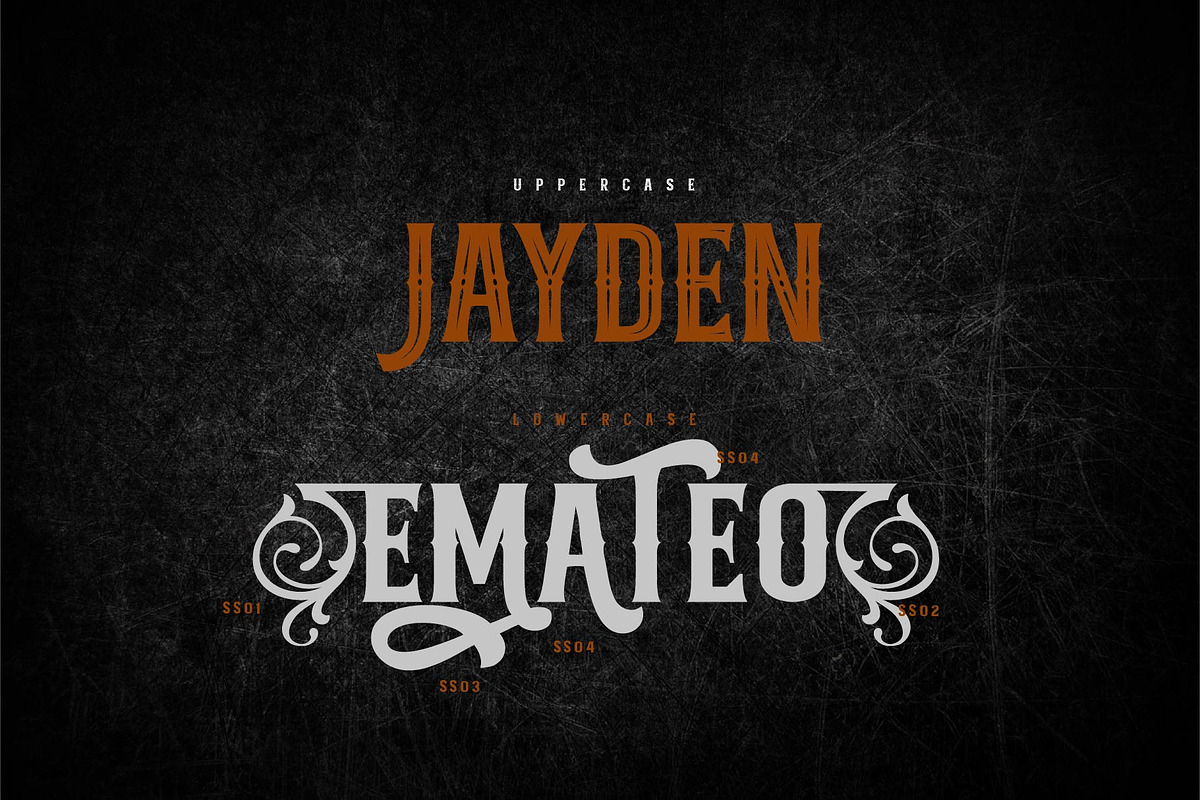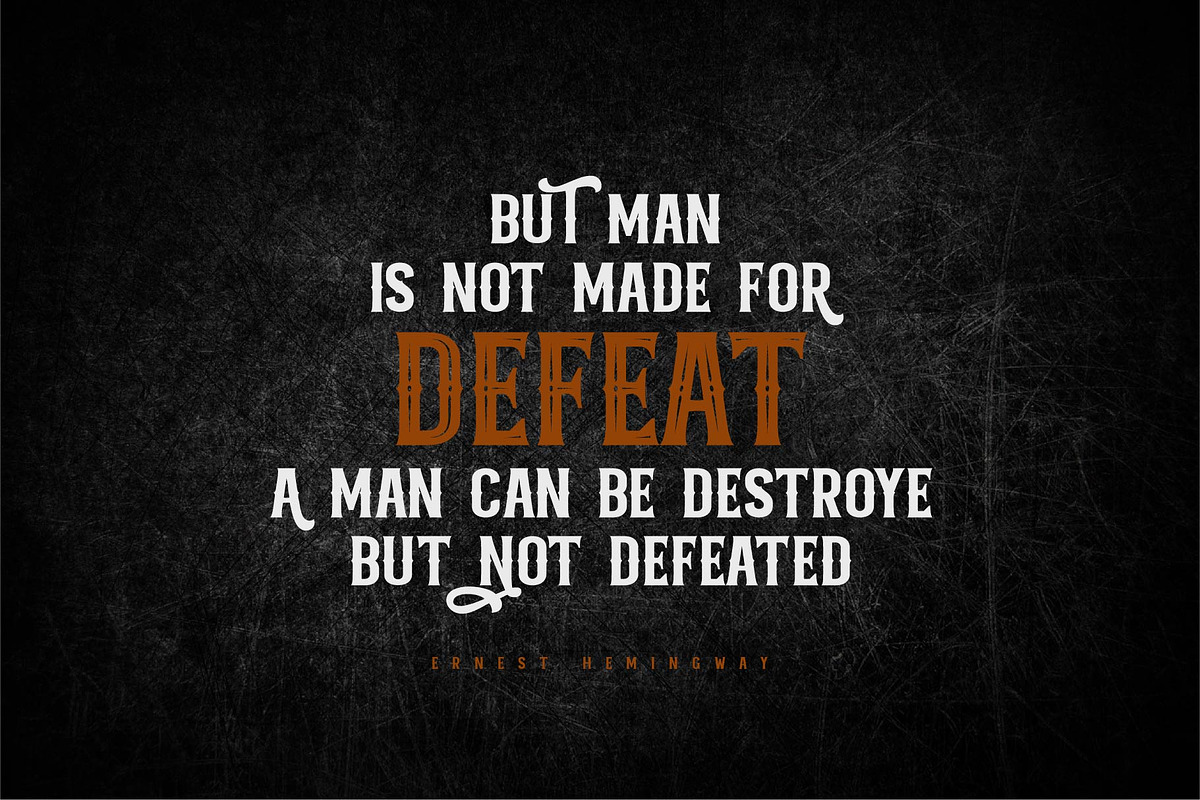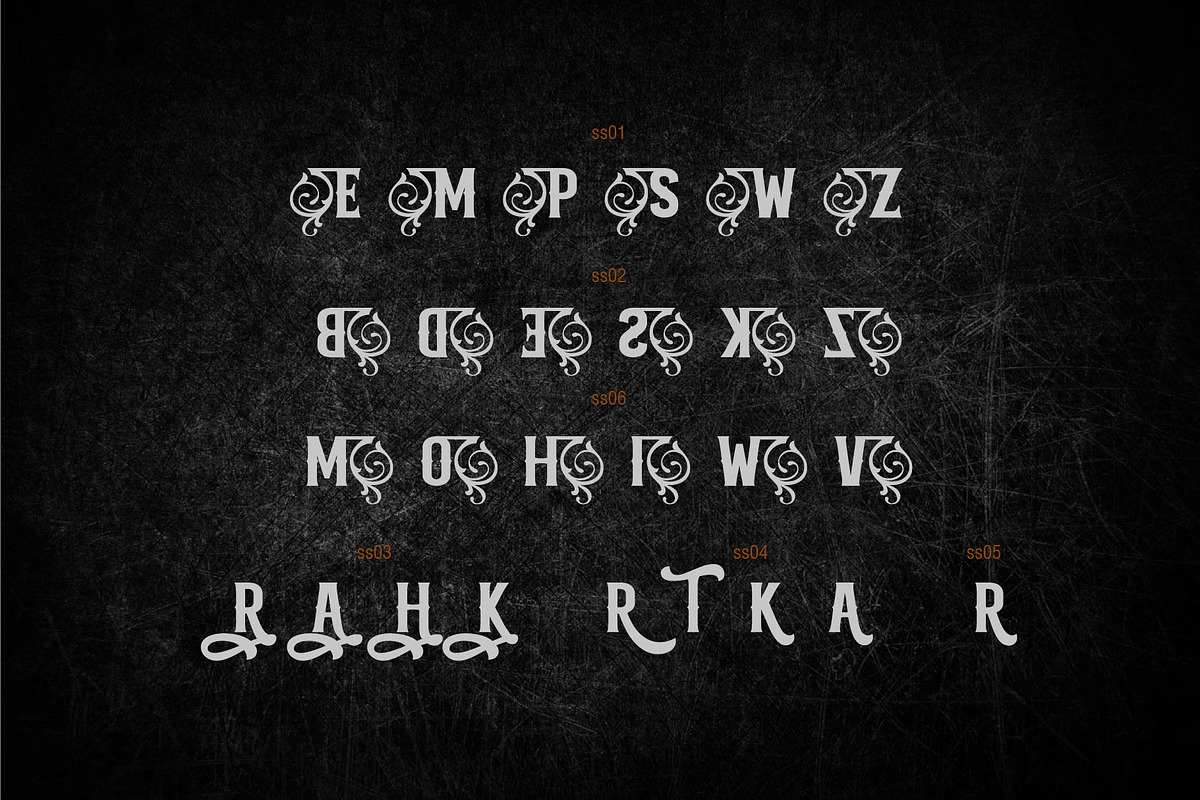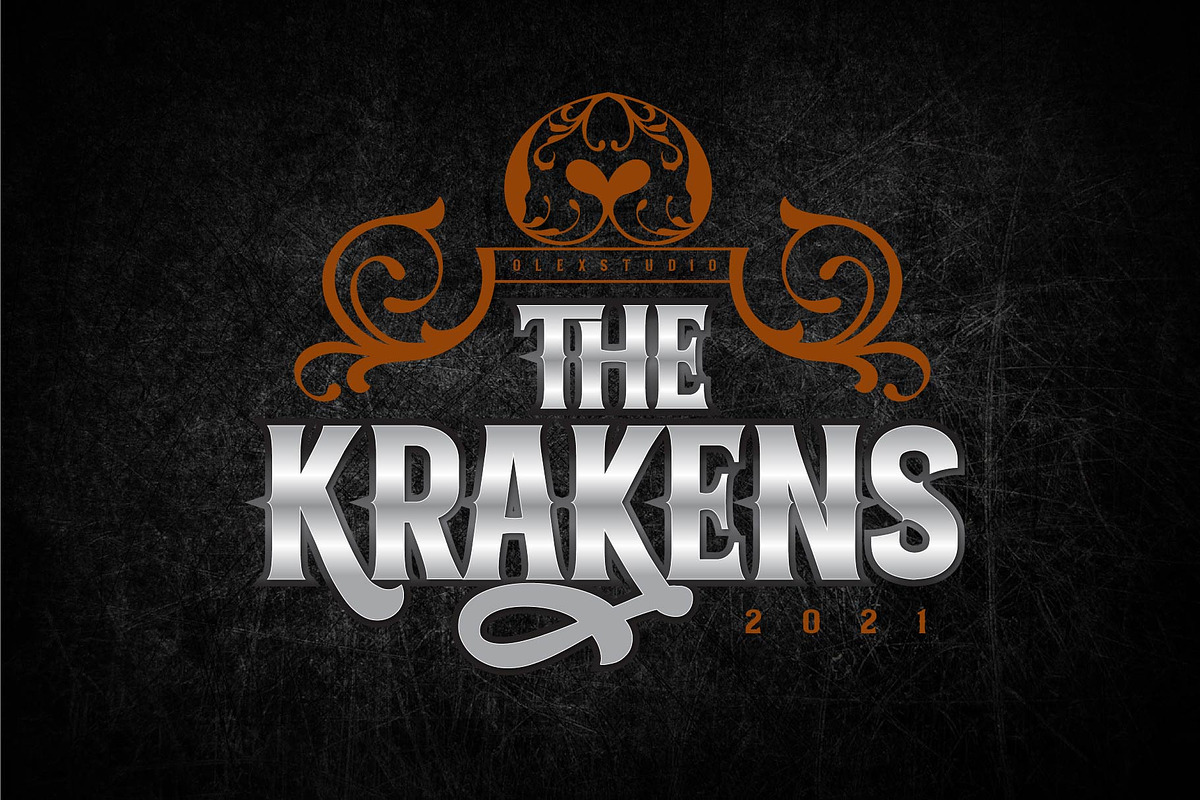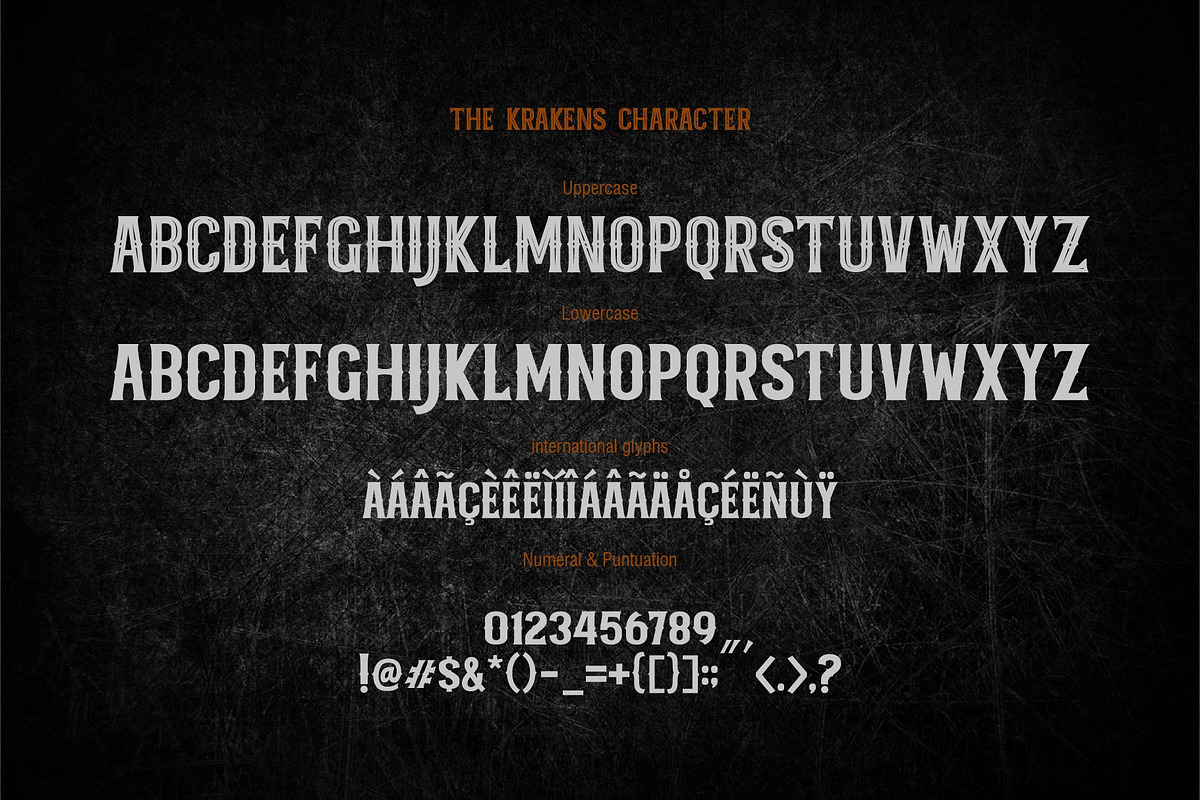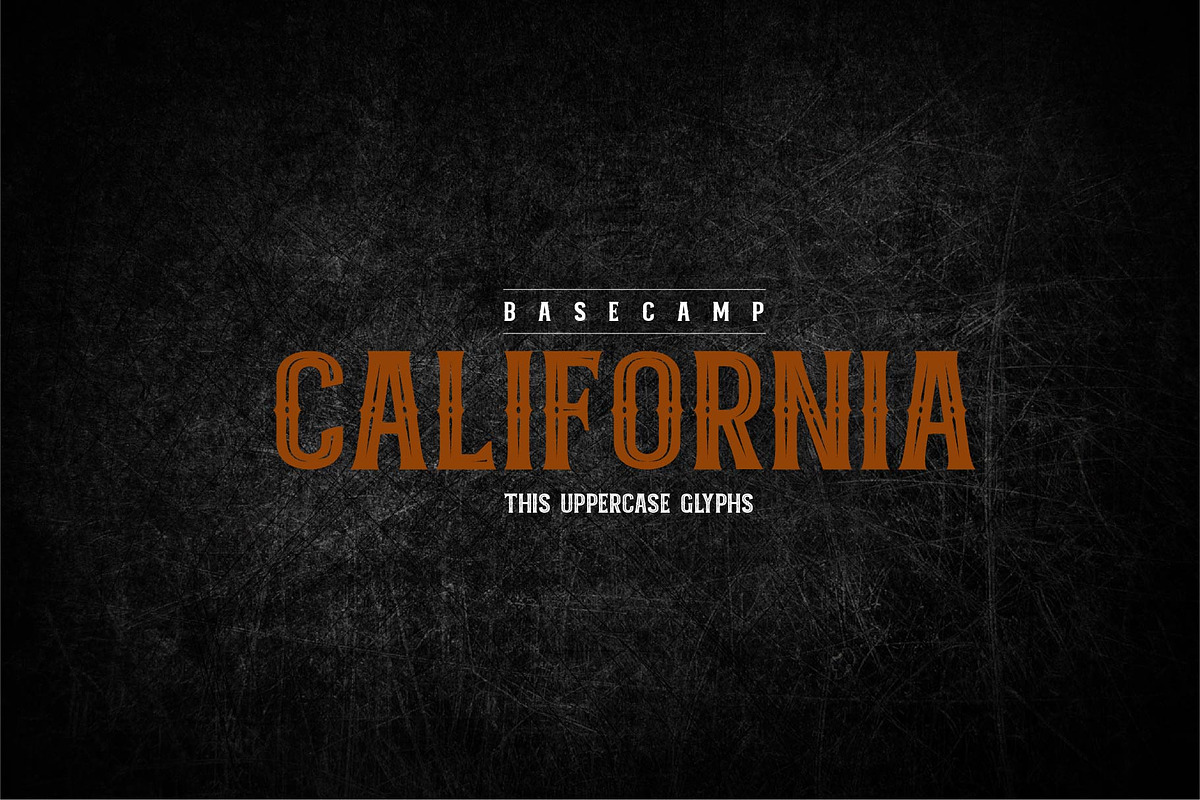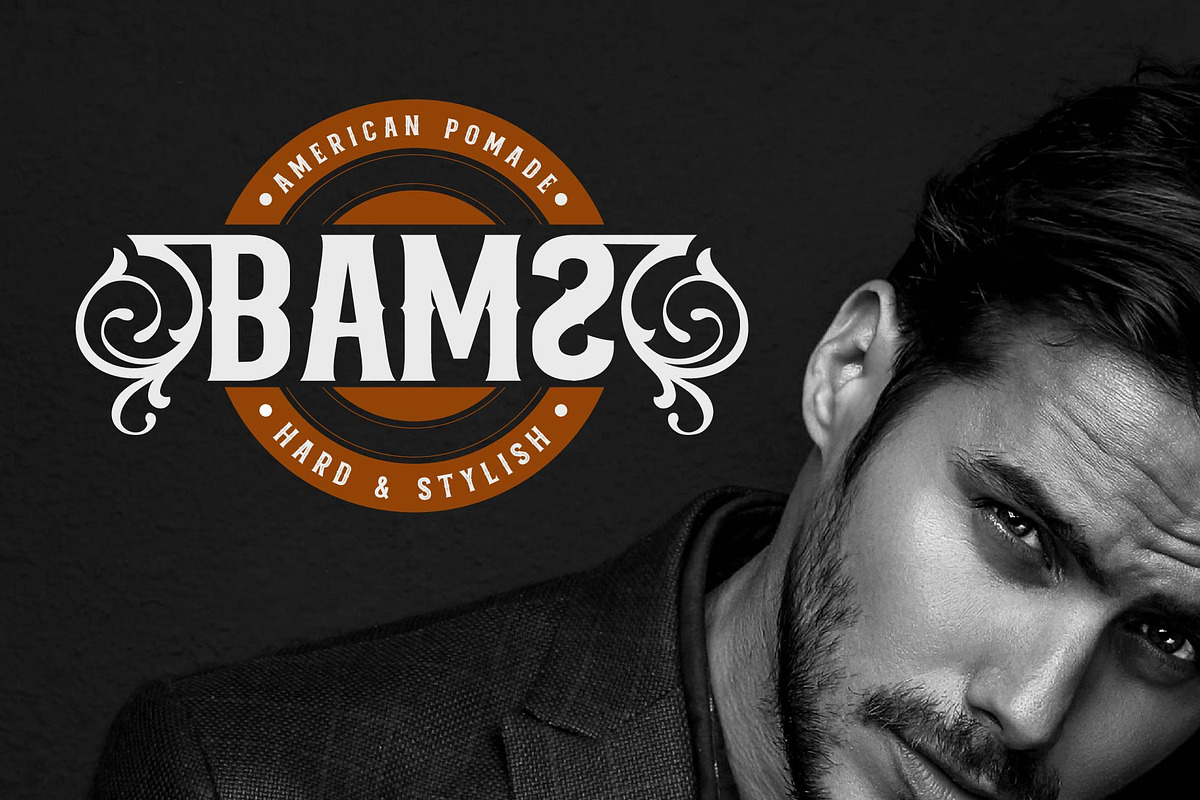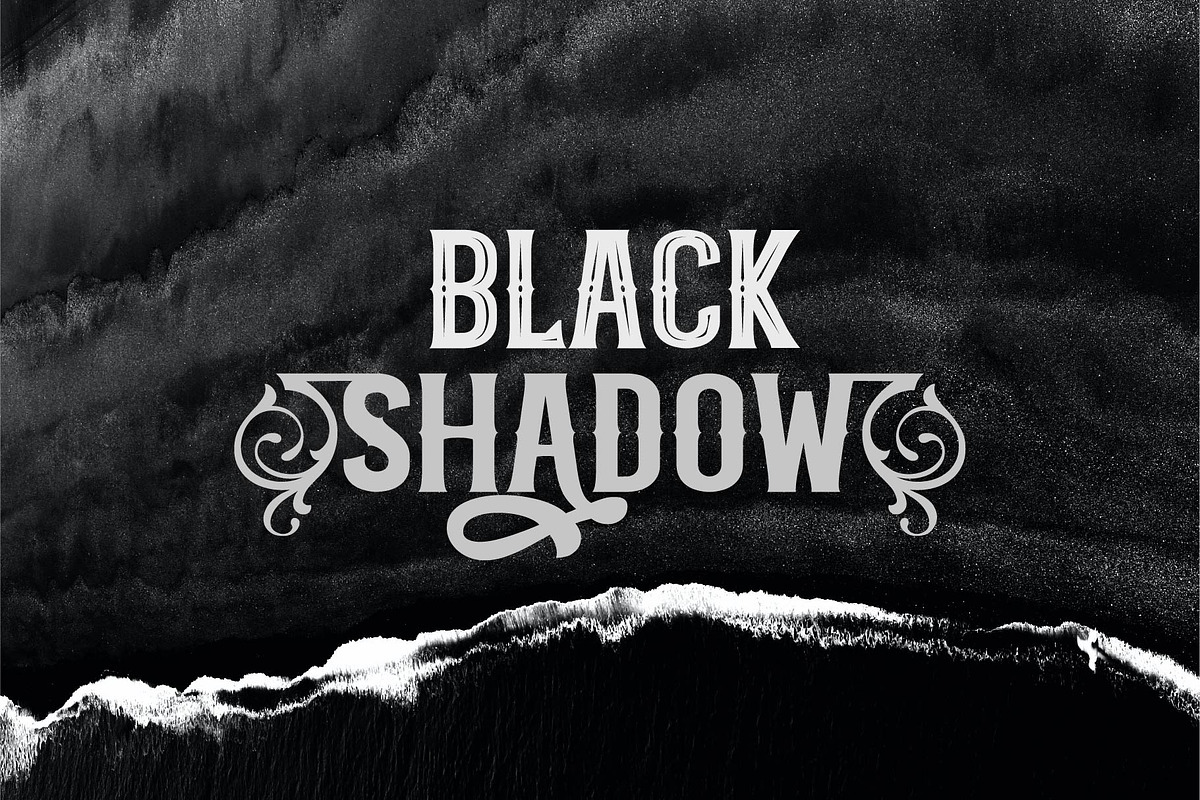
THE KRAKENS
THE KRAKENS - Display font will look gorgeous on all your designs, invitation, poster design, book design, branding materials, logo's, t-shirt and all project design other.
THE KRAKENS font contains standard characters, all character is Uppercase, numbers, punctuation, and international glyphs. You will receive OTF, TTF files & WEBFONT.